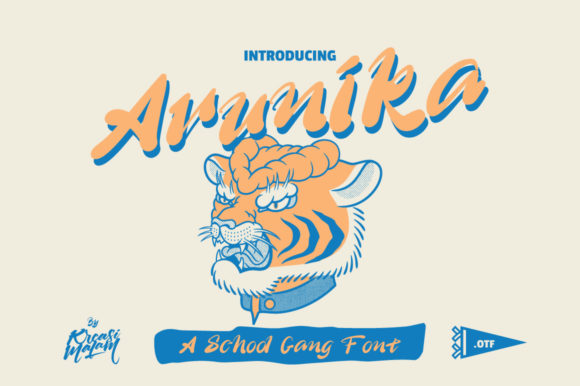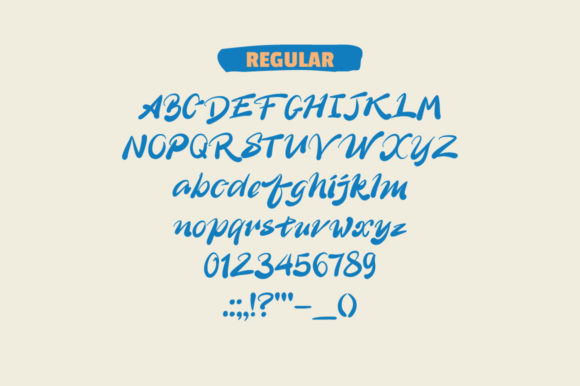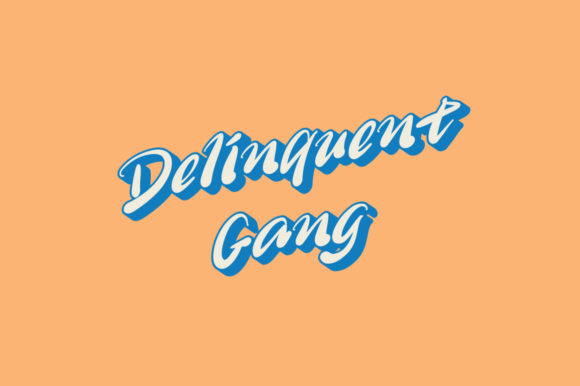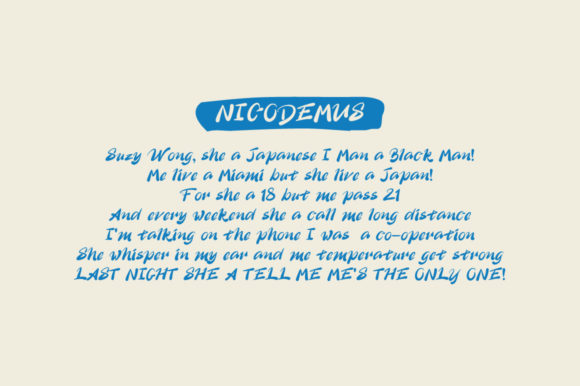
About Arunika Font
“Arunika” stands out as a handmade script font, boasting a distinctive style that adds an element of awe to your design endeavors. Ideal for a multitude of purposes, this font is particularly well-suited for logos, quotes, t-shirts, posters, and beyond, offering endless creative possibilities.
The unique charm of “Arunika” lies in its handcrafted appeal, which infuses your designs with authenticity and character. Each stroke exudes a sense of craftsmanship, creating a visual impact that captivates audiences and leaves a lasting impression. Whether you’re creating a memorable logo, crafting inspiring quotes, or designing eye-catching merchandise, this font lends a touch of uniqueness and flair to your projects.
With its versatility, “Arunika” seamlessly integrates into various design contexts, adapting effortlessly to different styles and themes. Whether you’re aiming for a vintage aesthetic, a modern vibe, or something in between, this font offers the flexibility to bring your vision to life. Its fluid strokes and dynamic forms add a dynamic quality to your designs, enhancing their overall appeal and impact.
Furthermore, “Arunika” offers practicality alongside its aesthetic appeal, ensuring ease of use across different mediums and applications. Whether you’re working on digital or print projects, this font maintains clarity and legibility, ensuring that your message is communicated effectively to your audience. Its versatility makes it a reliable choice for designers seeking both style and functionality in their work.
In addition to its suitability for design projects, “Arunika” also serves as a powerful branding tool, helping to establish a distinctive identity for your brand or business. Its unique style sets you apart from competitors, making your logo, merchandise, and promotional materials instantly recognizable and memorable. Whether you’re a budding entrepreneur or an established brand, “Arunika” offers the perfect blend of style and impact to elevate your brand presence.
In conclusion, “Arunika” is not just a font—it’s a creative asset that empowers designers to unlock their full potential and bring their ideas to life. Its handmade script style, combined with its versatility and practicality, makes it an invaluable addition to any design toolkit. Whether you’re crafting logos, quotes, t-shirts, posters, or any other creative project, “Arunika” promises to deliver outstanding results that resonate with your audience and elevate your designs to new heights of excellence.